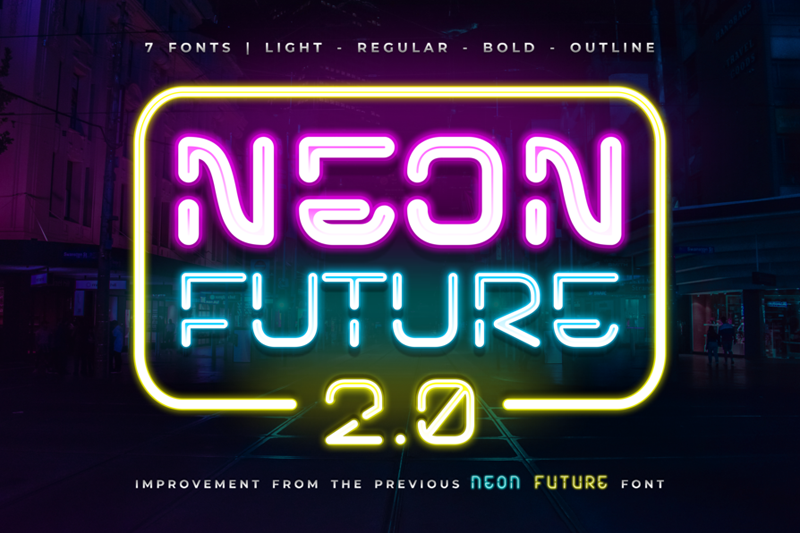
Neon Future 2.0 is a retro-futuristic display font with a timeless style. Major improvement of the Neon Future font at the link https://www.dafont.com/neon-future.font. There are 7 variant fonts in the Neon Future 2.0 Pro version: Light, Regular, Alternative & Outline. This demo font is available free for PERSONAL USE only. I would really love and appreciate it if you would consider treating me to a cup of coffee for personal use to my PayPal account: https://www.paypal.me/arukidz If you want to use this font for COMMERCIAL purposes, you need a commercial license that can be purchased at my store. Get attractive promos or discounts for every event in one of the marketplaces below: - https://arutype.com If you have questions, feel free to send me a message at arukidz.fl@gmail.com or visit https://arutype.com/contact My Portfolio: Tempatbagi --> https://tempatbagi.com/author/arukidz-fl Behance --> https://www.behance.net/arukidzfl Dribbble --> https://dribbble.com/arukidzfl More... |